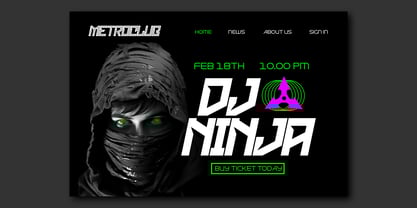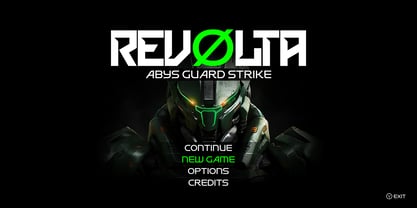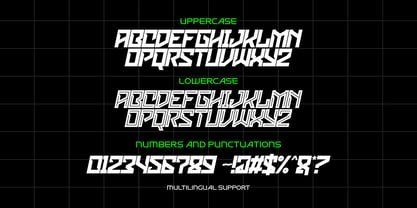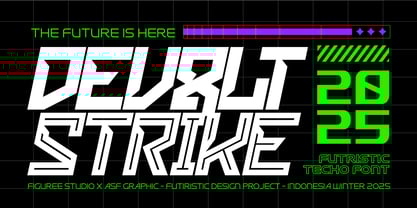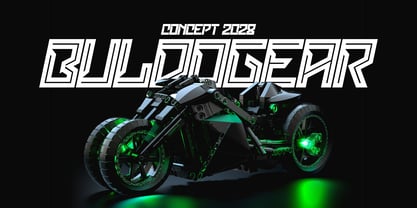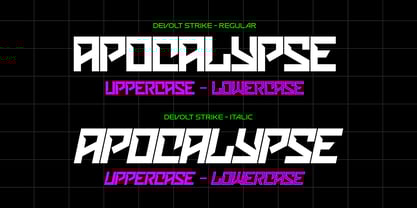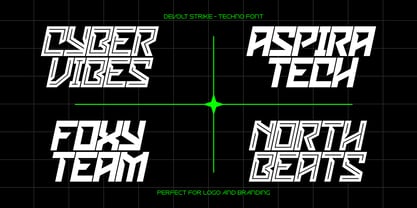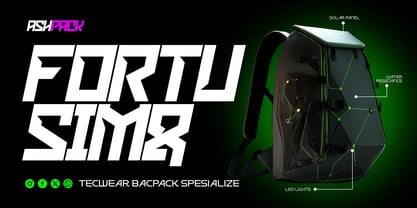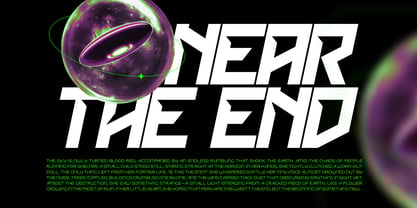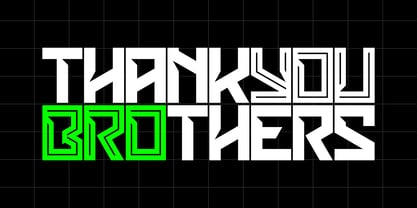
Devolt Strike
The Devolt Strike Font Family was designed by Icep Anwar Fadhil and published by Figuree Studio. Devolt Strike contains 2 styles and family package options. More about this family
Unleash the power of innovation with Devolt Strike, a cutting-edge futuristic techno font designed to electrify your designs. With its sharp edges and sleek, modern lines, this font perfectly matches tech-inspired projects, gaming graphics, and sci-fi themes.
Bold Futuristic Style: Devolt Strike features striking geometric forms and a high-tech aesthetic that exudes confidence and modernity.
🎮 Versatile for Tech and Gaming: Whether you're designing UI/UX, game titles, or digital artwork, this font adapts seamlessly to deliver a polished and futuristic look.
🚀 Dynamic Impact: With its clean yet edgy design, Devolt Strike ensures your text commands attention, creating a strong visual impact in digital and print media.
Transform your designs with the bold energy of Devolt Strike—a must-have for creators looking to explore the future of typography.